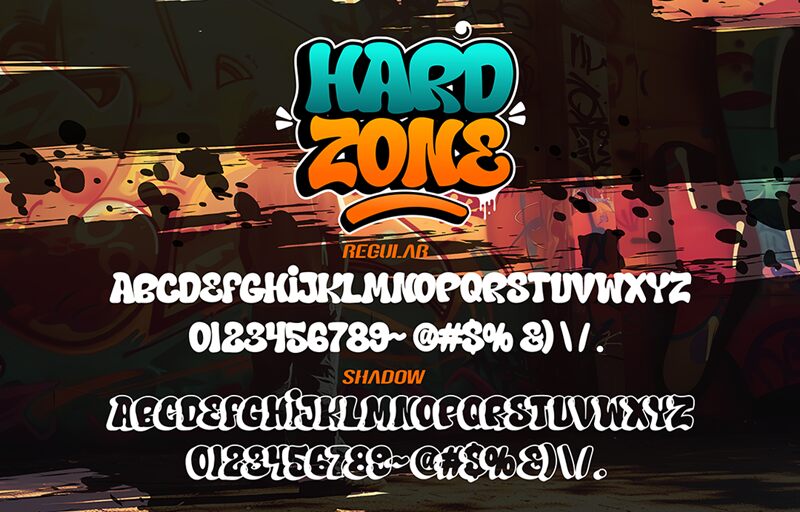
Hard Zone
Hard Zone font by Saepul milah of CikareotypeStudio x figureeStudio is a free graffiti font. It hits with chunky, inflated letterforms that feel spray-painted and slightly squishy, like wet ink pushing against the edges. The bold rhythm keeps words readable even when you stack them tight, while the playful wobble adds instant street energy.
Using Hard Zone on posters, album covers, skate and streetwear graphics, YouTube thumbnails, event flyers, sticker packs, or bold social headers gives your message a loud voice without turning messy. This free font also works nicely for punchy packaging or merch tags when you need attitude in a few words. Pair it with a clean condensed sans for captions, and give it breathing room—bigger sizes let the curves land with confidence.